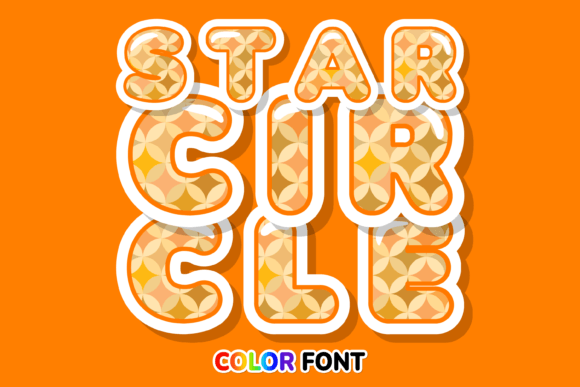
Introducing Star Circle Font: A Kaleidoscope of Colors for Your Creative Palette
Unleash your creativity with Star Circle Font, a vibrant and captivating color font that will transform your designs into masterpieces. Experience the magic of colors as they dance across your screen, bringing life to your words and captivating your audience.
With Star Circle Font, the possibilities are endless. Create stunning logos that pop off the page, eye-catching social media graphics that demand attention, and unique invitations that leave a lasting impression. Whether you're a seasoned designer or just starting, Star Circle Font is the perfect tool to elevate your creations to new heights.
Don't be limited by ordinary fonts. Embrace the extraordinary with Star Circle Font. Add a touch of whimsy to your DIY crafts, create delightful signage for your home or business, or simply add a splash of color to your everyday documents.
With Star Circle Font, you'll never run out of ways to express yourself. Its vibrant hues will add a spark to your designs, leaving your audience mesmerized and inspired.
Step into a world of color and creativity with Star Circle Font. Let your imagination soar as you explore the endless possibilities this font has to offer.
Features:
- A mesmerizing color font that brings your designs to life
- Perfect for creating logos, social media graphics, invitations, and more
- Unleash your creativity in DIY crafts, home décor, and everyday documents